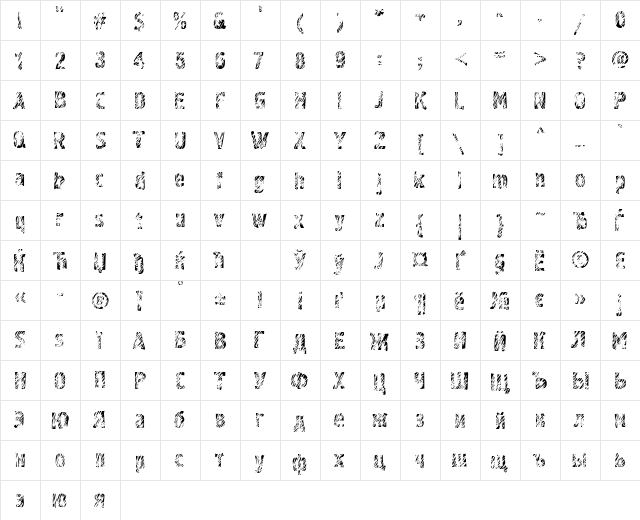
Graffiti3C Regular
Design Context for Graffiti3C Typeface
Graffiti3C is a composed and adaptable typeface that performs quietly and consistently across a wide range of design contexts.